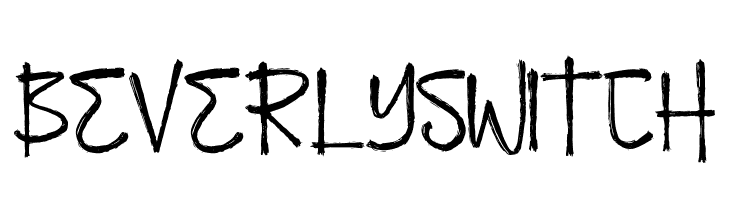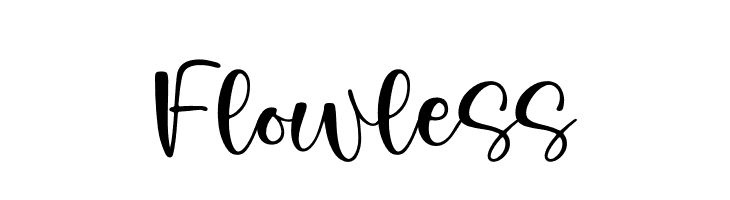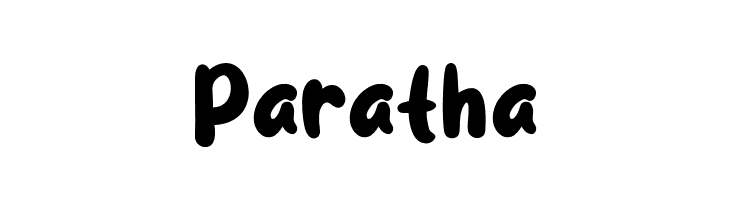
A playful, hand-drawn font with bold, irregular characters and a cartoonish style.
A tall, narrow font with a modern and sleek design.
A bold, condensed font with strong vertical emphasis and uniform width.
A modern, tall, and narrow font with a sleek, geometric design.
A playful, hand-drawn font with bold outlines and textured fills.
A bold, modern font with elongated characters and a unique artistic style.
A bold, playful font with rounded edges and a friendly appearance.
A bold, geometric font with uniform stroke width and strong presence.
A bold, playful font with a retro vibe and unique character shapes.
A bold, playful font with thick, rounded strokes and a whimsical, hand-drawn aesthetic.